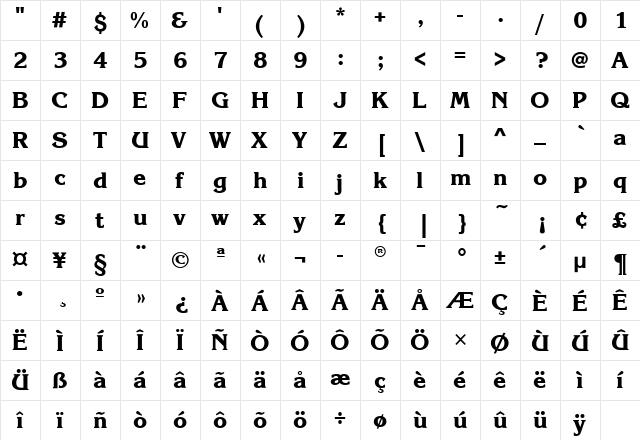
KorinnaITC ExtraBold
Design Context for KorinnaITC Typeface
KorinnaITC is a composed and adaptable typeface that performs quietly and consistently across a wide range of design contexts. Its bold stroke weight gives it real presence on the page.